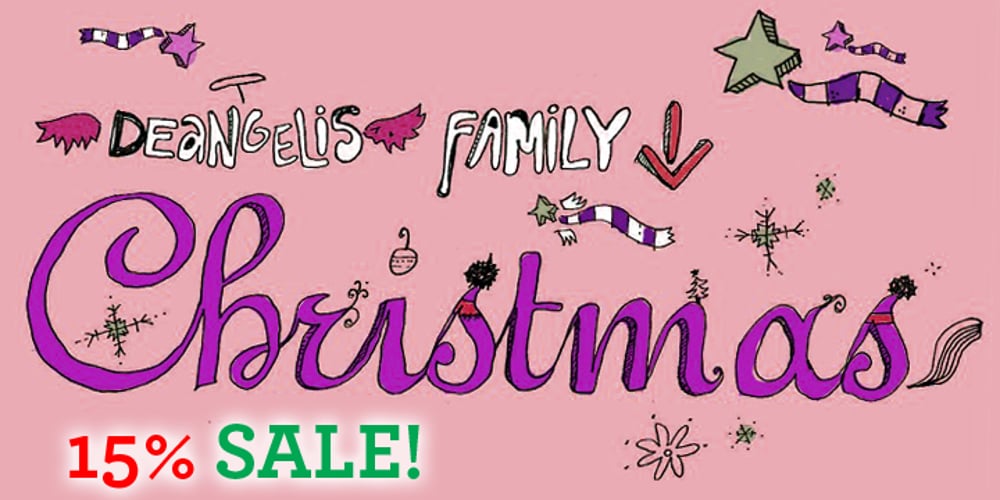
Wintery Mix Font Family was designed by Jennifer DeAngelis Gunn and published by DP Fonts. Wintery Mix contains 1 styles and family package options. Wintery Mix contains a set of small winter and holiday illustrations collected from years of holiday cards I created. A winter scene or greeting can be created with the tap of an ‘a’ or ‘B’.